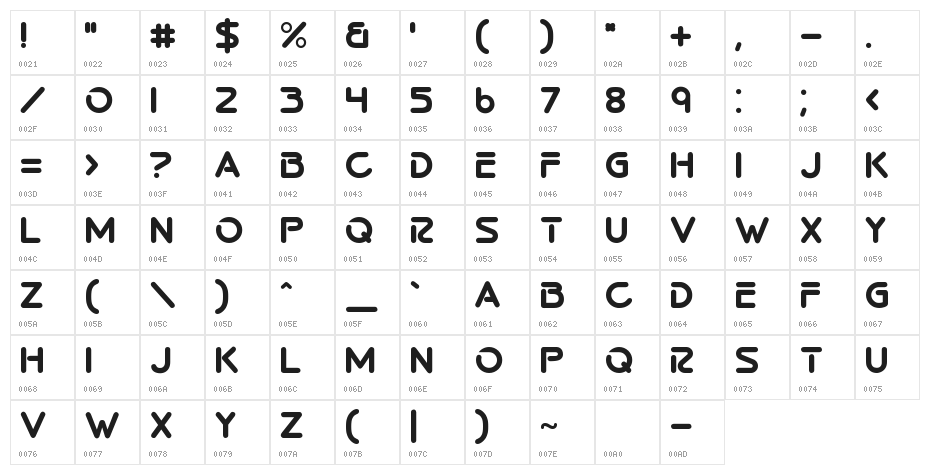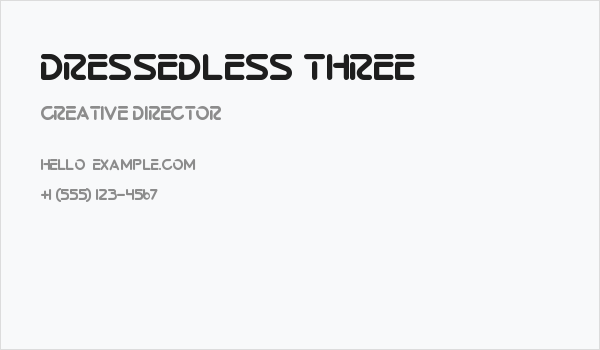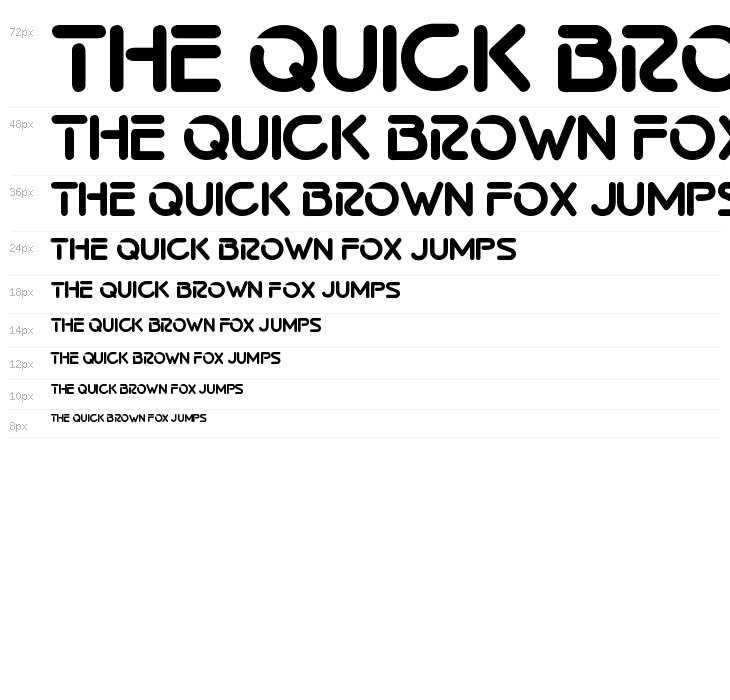
Dressedless Three Font
| Vorgeschlagene Projekte | Ideal for technology branding, digital interfaces, posters, and futuristic-themed designs. |
Dressedless Three